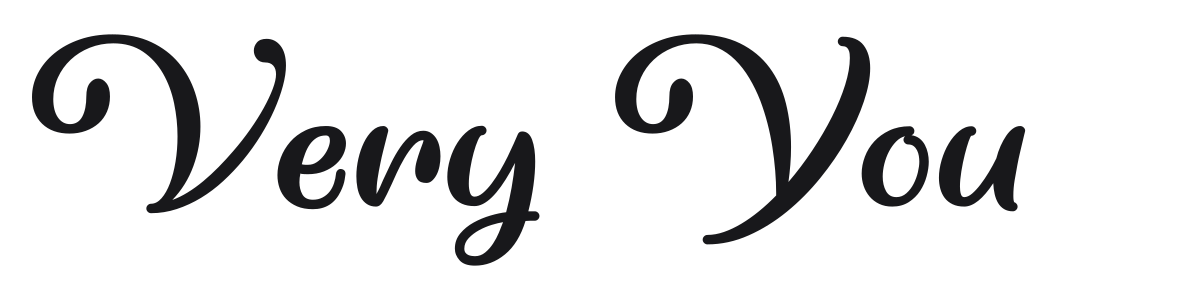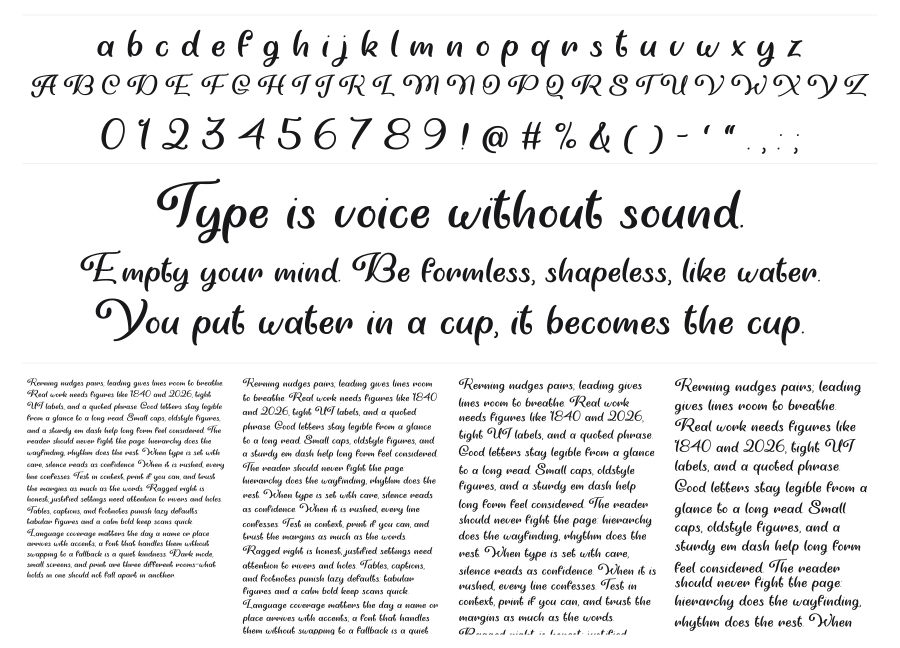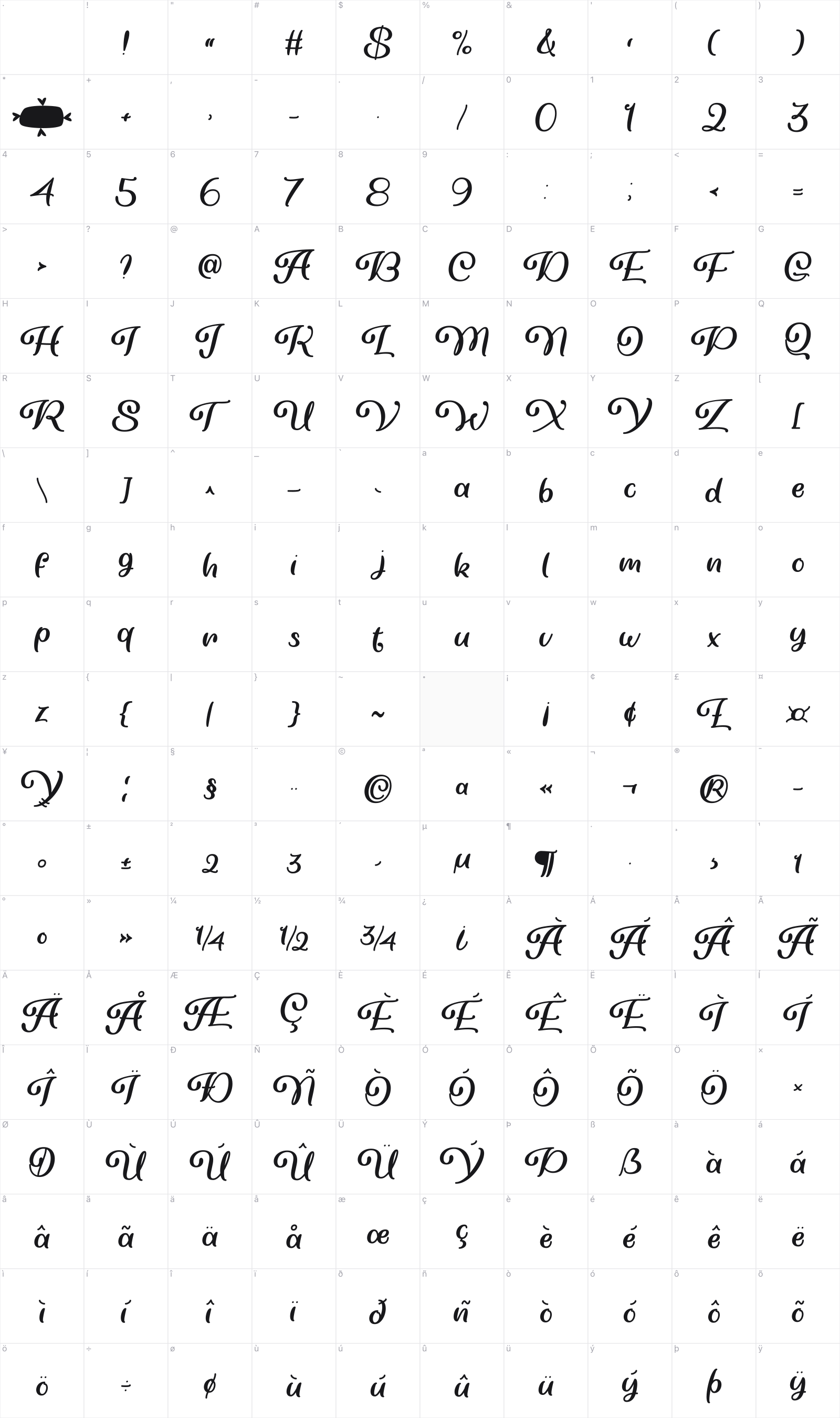
Very You
Very You is a casual connected script from Misti's Fonts with a warm, handwritten feel and an easy bounce to its baseline. The rounded strokes and flowing connections keep it readable at headline sizes while still feeling personal and spontaneous. It includes a decorative heart frame accessible via the asterisk key.